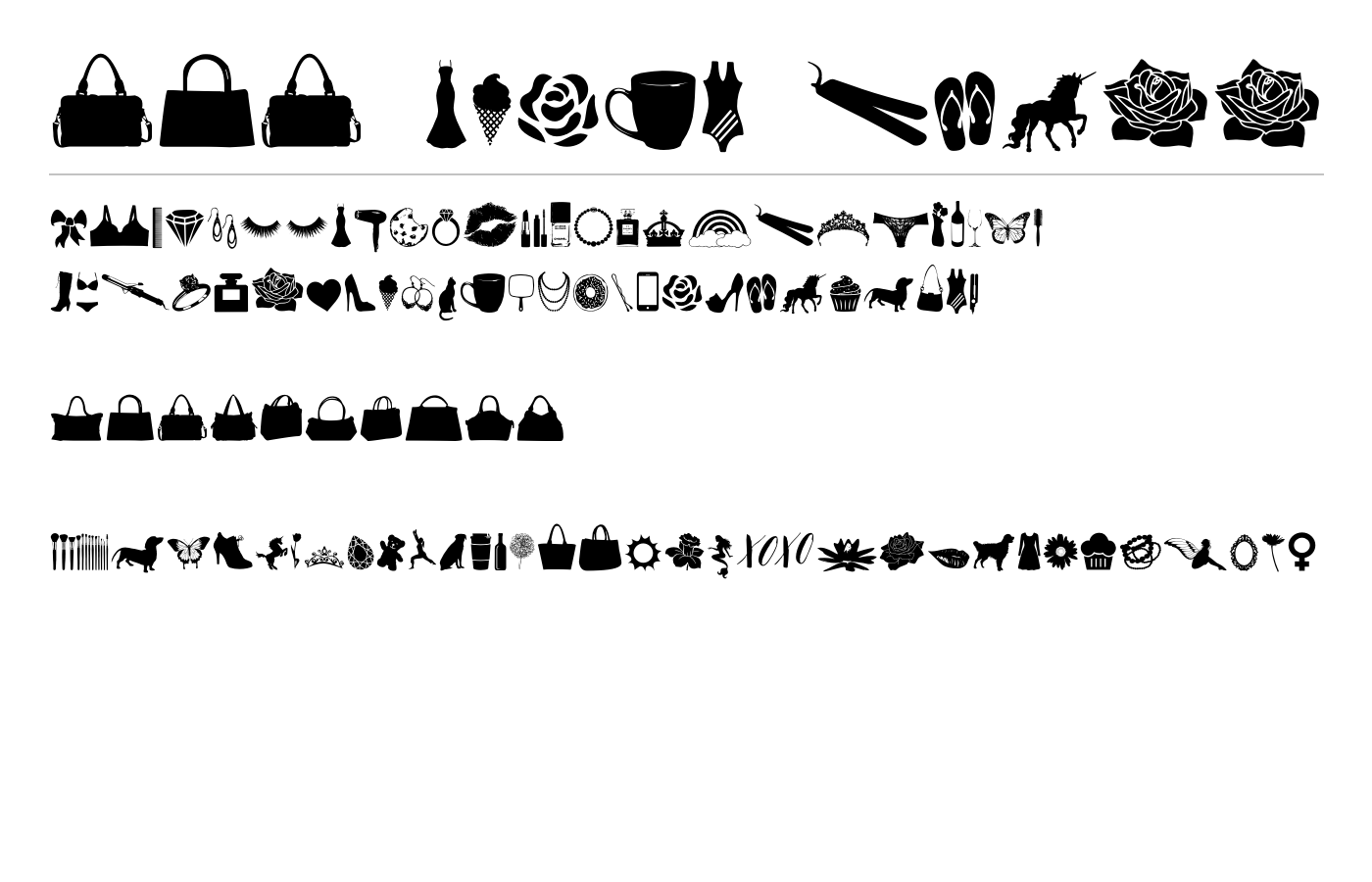
212 Girly Stuff is a playful and feminine dingbat font filled with charming silhouettes that evoke fashion, beauty, and lifestyle themes. With its bold, solid shapes of handbags, makeup, flowers, and accessories, it works perfectly for creating stylish and whimsical designs in branding, packaging, or social media graphics aimed at a youthful, trendy audience. This font adds a fun and decorative touch wherever a chic, girly vibe is desired.